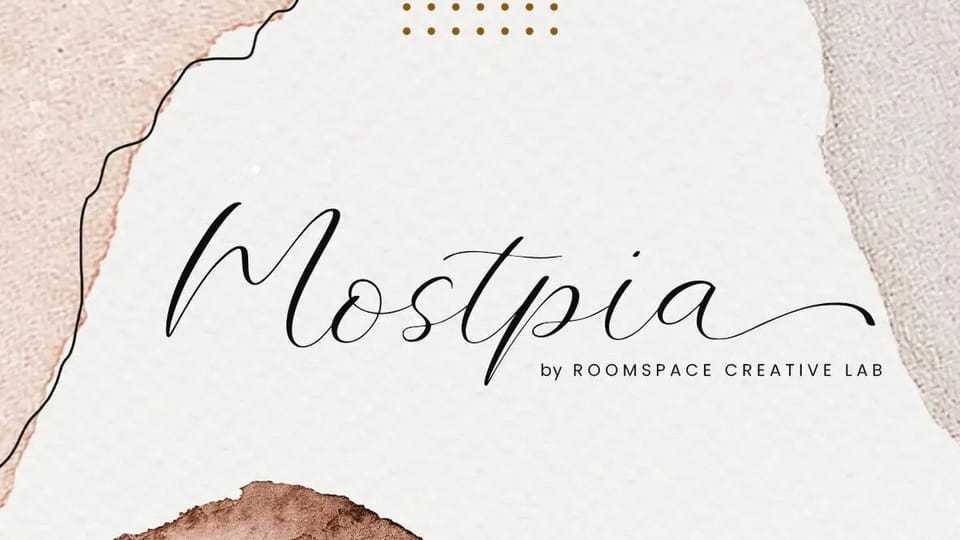
Download Mostpia font, a beautifully elegant handwritten script typeface. Mostpia brings a unique blend of sophistication and warmth, perfect for elevating any design project.